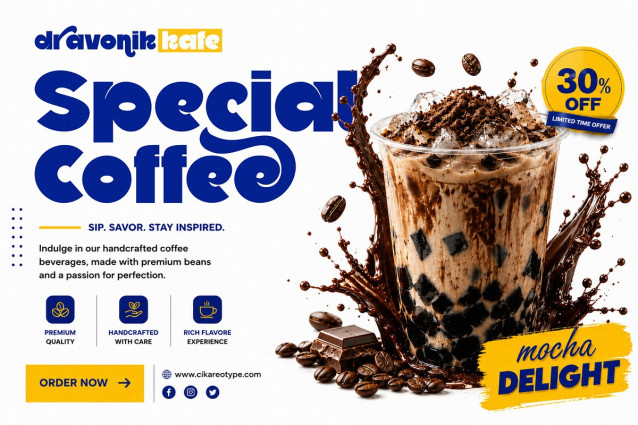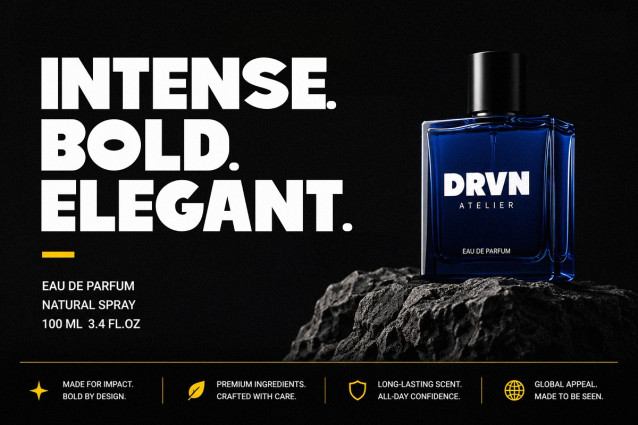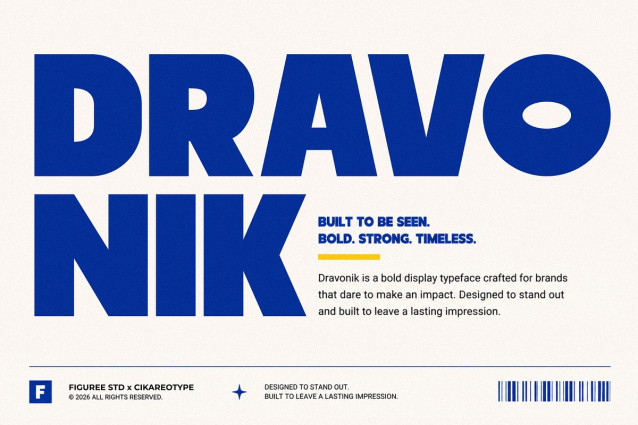
Dravonik Font– Bold Display Sans Serif, a strong and versatile typeface created for impactful typography projects. Designed with clean shapes, bold proportions, and modern character construction, Dravonik works perfectly for headlines, posters, presentation titles, editorial layouts, digital graphics, and promotional materials.
Dravonik comes with a complete character set including uppercase, lowercase, numbers, punctuation, symbols, multilingual support, and alternate characters. This gives designers more flexibility when creating distinctive text compositions and varied typographic styles.
The bold structure helps text remain readable while keeping a strong visual presence. Whether used in large display settings or supporting elements inside a layout, Dravonik adapts easily across different creative applications.
It’s included italic style adds more variation for emphasis, layered typography, quotes, subtitles, and dynamic compositions. Combined with alternate characters, users can create multiple visual directions without switching fonts.
Dravonik is suitable for posters, editorial pages, presentations, book covers, video titles, social media graphics, event materials, packaging layouts, website headers, and other display-focused projects. The balance between modern sans serif construction and expressive details allows it to fit both minimal and bold compositions.